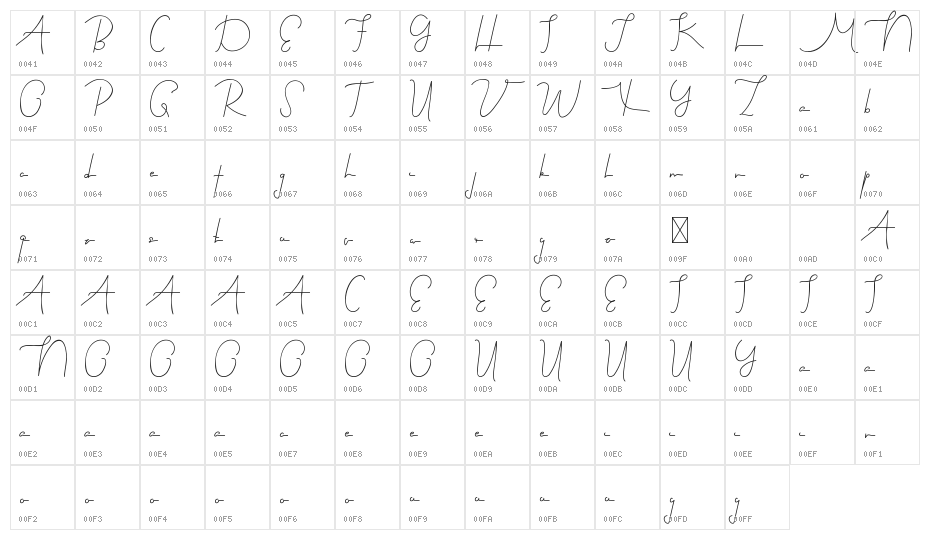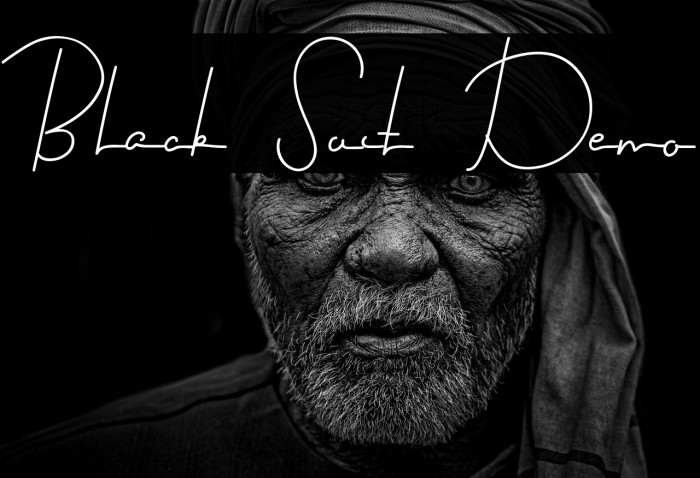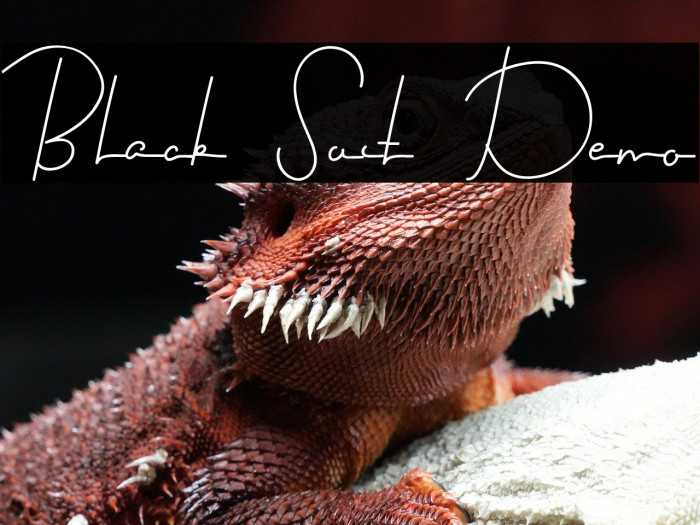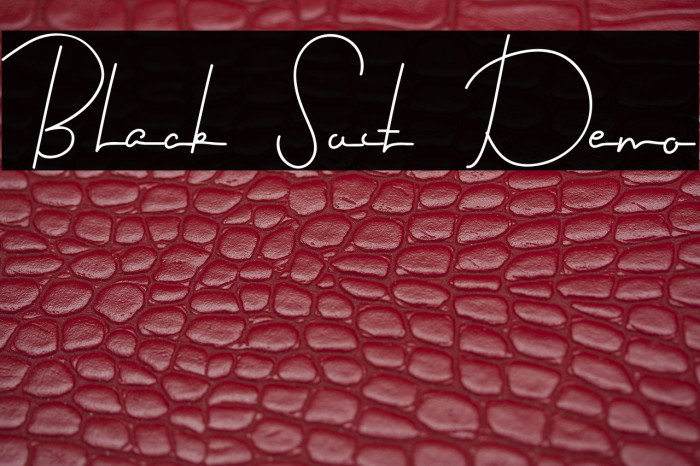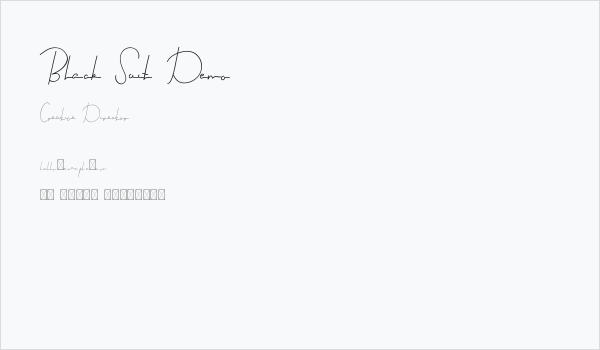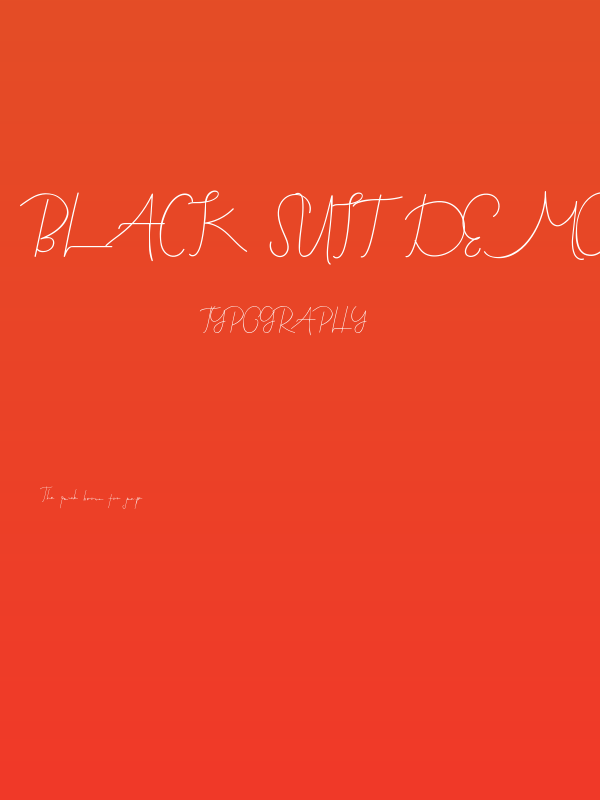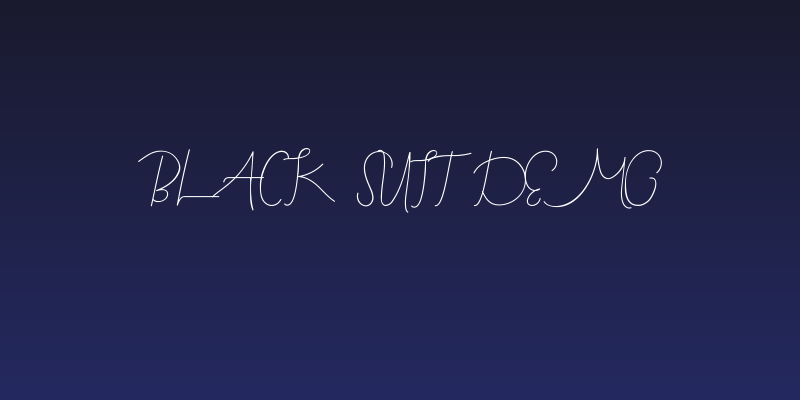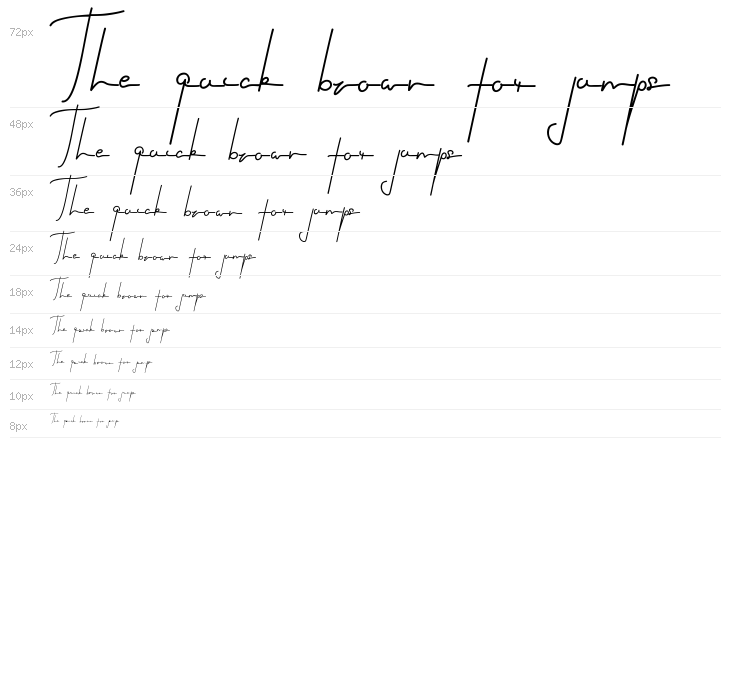
Black Suit Demo Font
Black Suit Demo Description
This font features an elegant and flowing script style, characterized by its delicate, thin strokes and graceful curves. The uppercase letters exhibit a sophisticated flair with extended loops and swirls, while the lowercase letters maintain a consistent, connected flow that enhances readability. The numerals and special characters are designed with the same attention to detail, ensuring a cohesive appearance across all elements. The overall design exudes a sense of refinement and artistry, making it suitable for projects that require a touch of elegance and sophistication.